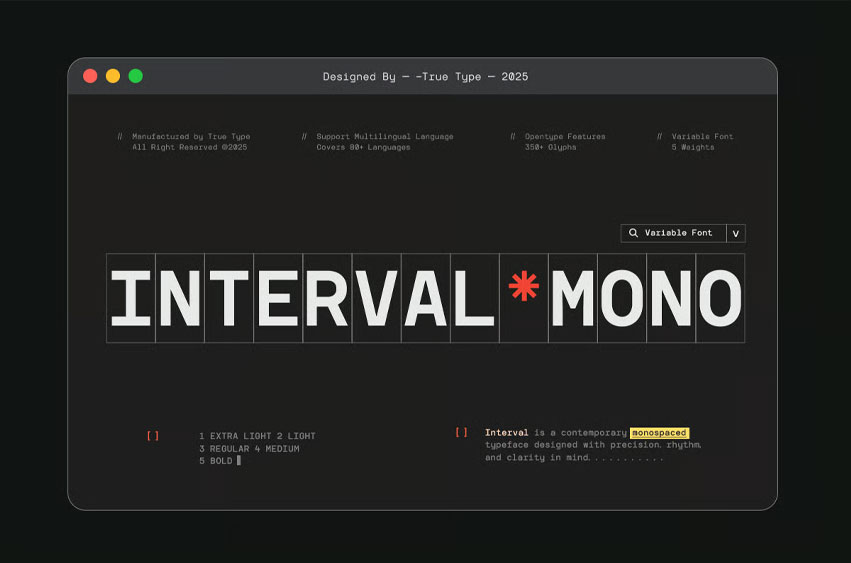
Interval Mono Font
Interval Mono Font has the quiet strength of simple letterforms—particularly those found in classic monospace and geometric typefaces. Their clarity, structure, and rhythm inspired me to create something that felt equally balanced but more adaptable for today’s design needs.
With TBJ Interval, I focused on consistent widths and clean lines, building each character with precision and restraint. While its foundation is rooted in geometry and a modular grid, subtle details in select glyphs help bring a human touch—making it feel less mechanical and more approachable.
• Light, Regular, Bold
• Numerals and Punctuation
• Accented characters
The result is TBJ Interval — a modern monospace sans serif designed for clarity, rhythm, and versatility. Whether used in branding, editorial layouts, user interfaces, or code, Interval delivers a strong typographic voice that’s both functional and refined.